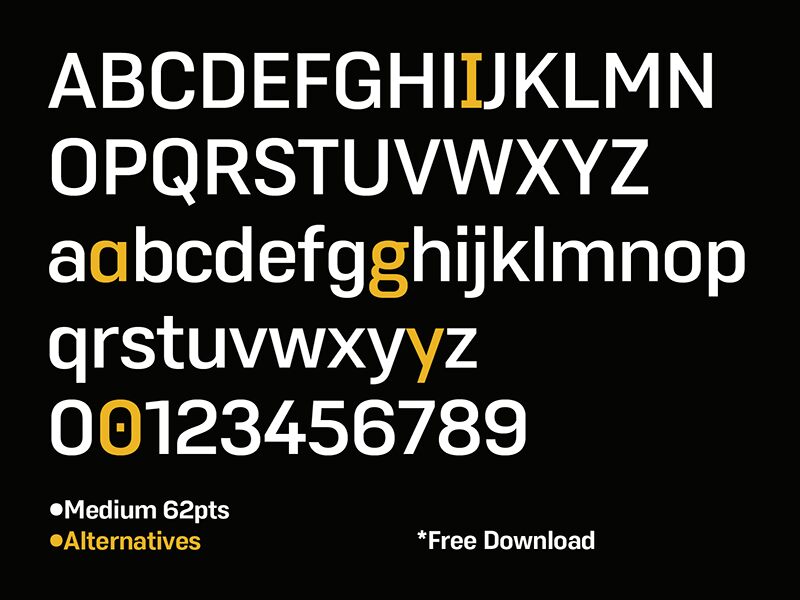
Duran Medium font, part of the Duran family designed by The Northern Block, is a striking sans serif with a robust geometric presence. Built for versatility, its clean lines and industrial charm make it perfect for both large displays and body text. The compact design optimizes space across layouts, making it ideal for modern applications where clarity and efficiency are paramount.
With roots in technical letterforms, Duran Medium is perfect for designers seeking a free font that's both powerful and refined. Whether in branding or editorial projects, this font elevates content while maintaining readability. Download Duran Medium to infuse your work with its bold yet functional aesthetic appeal.